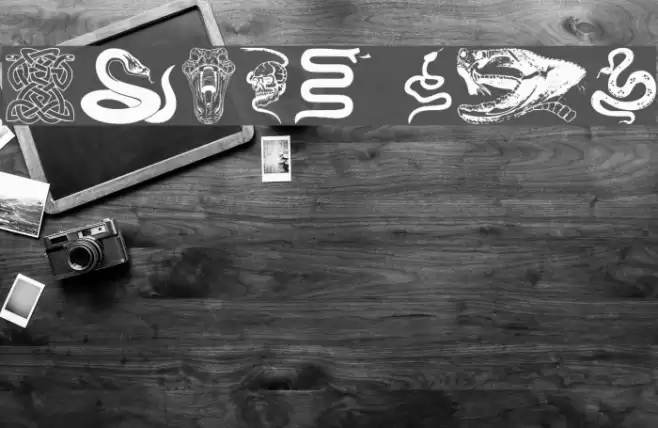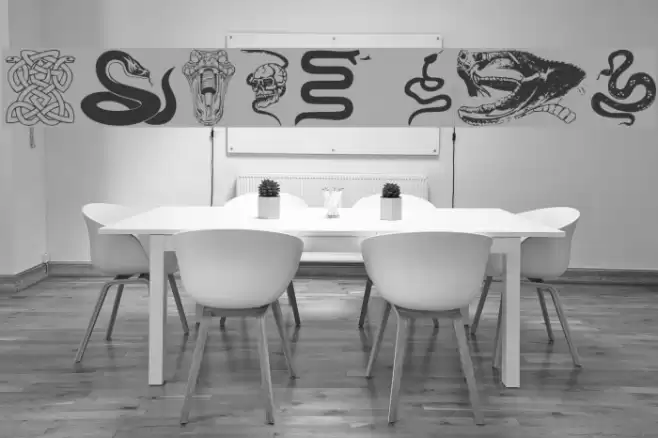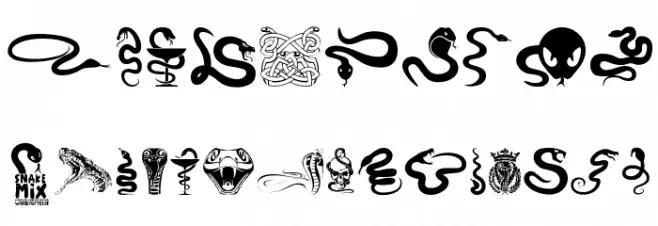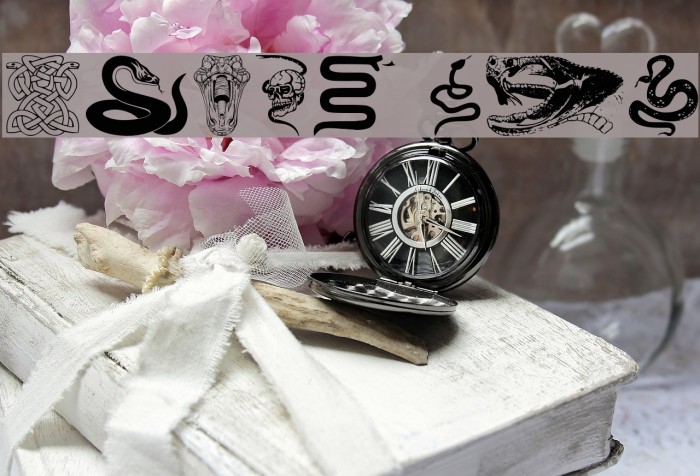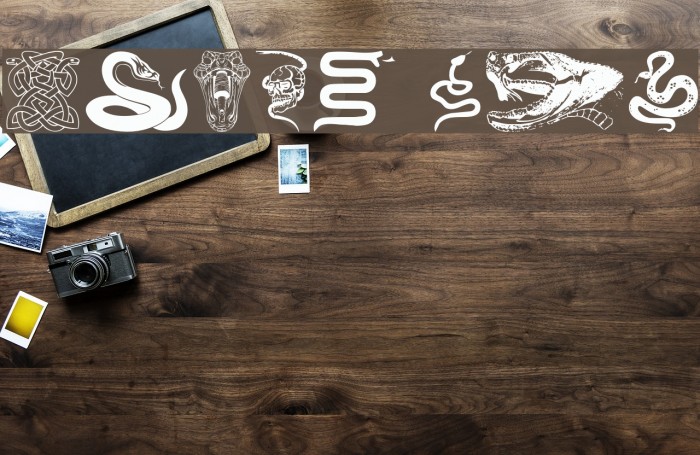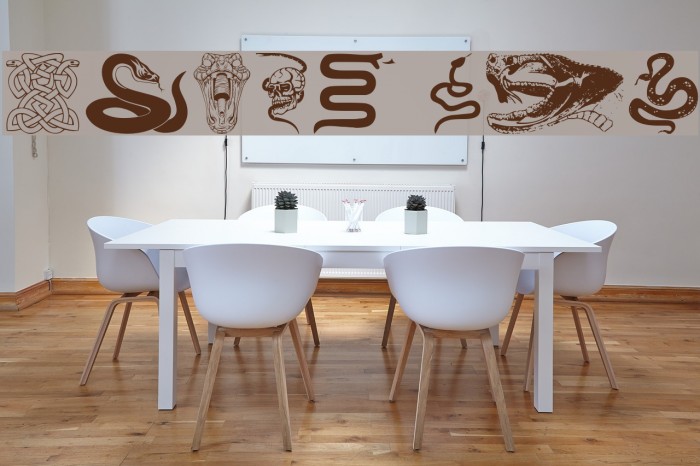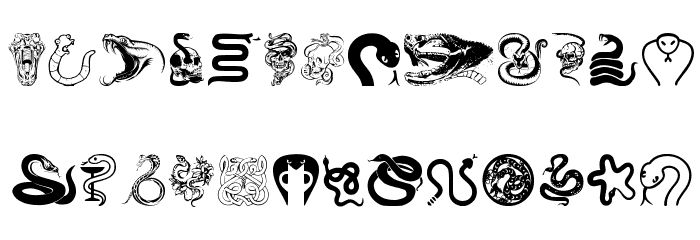
Snake Mix Font
Snake Mix Description
This collection features a diverse array of snake-themed designs, each character intricately crafted to resemble various snake forms and motifs. The designs range from realistic depictions of snakes to abstract and stylized interpretations, incorporating elements like coiled bodies, snake heads, and intertwined forms. The characters are bold and visually striking, making them ideal for decorative purposes. The use of high contrast between the black snake designs and the white background enhances their visual impact, creating a dramatic and eye-catching effect. This collection is perfect for projects that require a unique and thematic approach, particularly those related to nature, wildlife, or mythology.
A bold, snake-themed decorative collection with high contrast and intricate designs from Dingbats fonts.
- Proposed Projects: Ideal for use in thematic designs such as wildlife posters, nature-themed branding, mythological illustrations, and decorative art projects.
- Use Case: Logos, Decorative art, Thematic designs